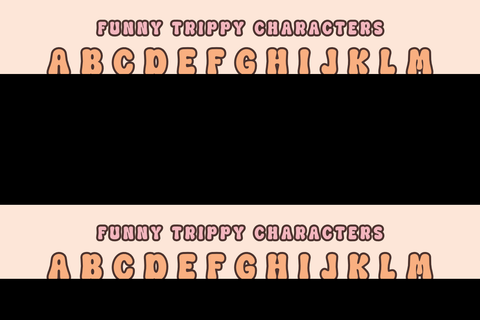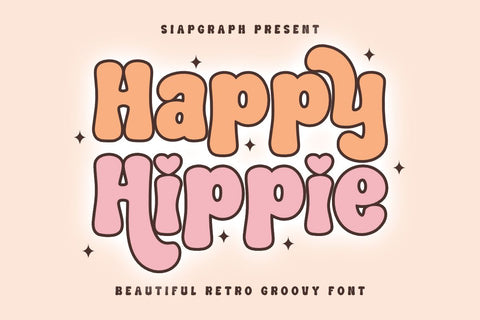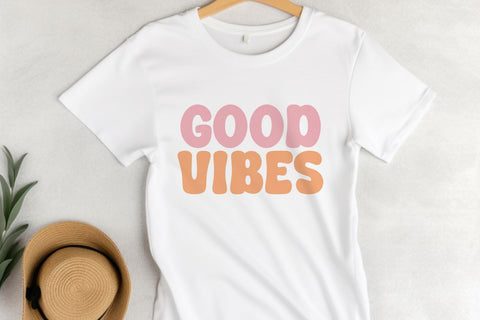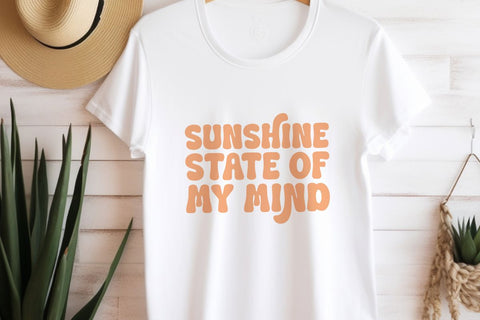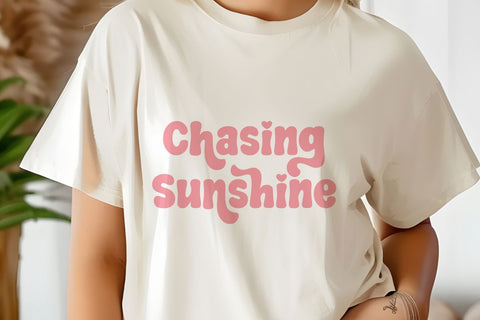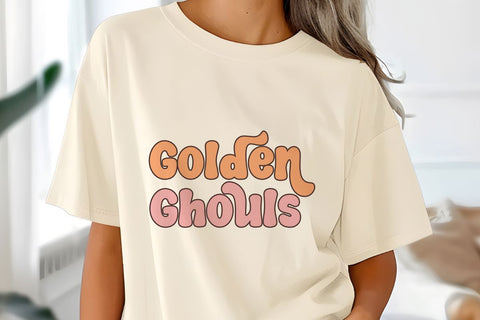
Happy Hippie – Retro Groovy Font
Happy Hippie is a fun, playful, and groovy display font that brings back the colorful vibes of the 70s. With its bubbly curves and retro charm, this font is perfect for adding a dose of happiness to your creative projects.
Whether you’re designing groovy t-shirts, retro sublimation mugs, fun Cricut crafts, or colorful digital products for Etsy, Happy Hippie makes your designs pop with a nostalgic yet modern feel. It’s especially loved by print-on-demand sellers and crafters who want to bring positive vibes and retro fun to their customers.